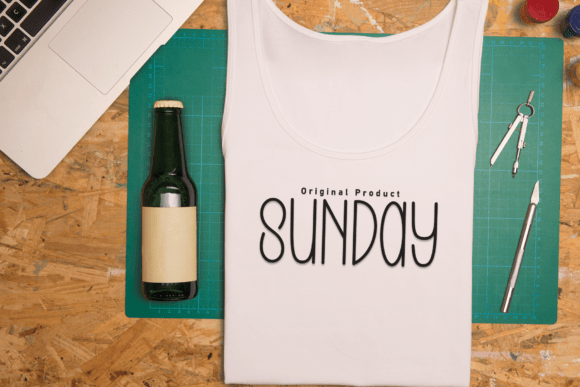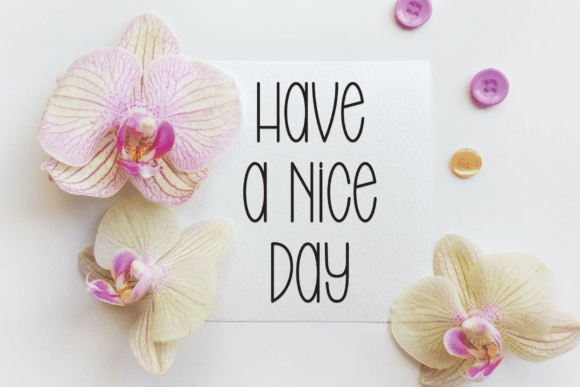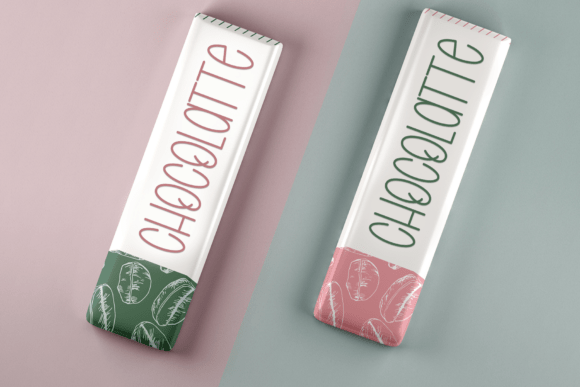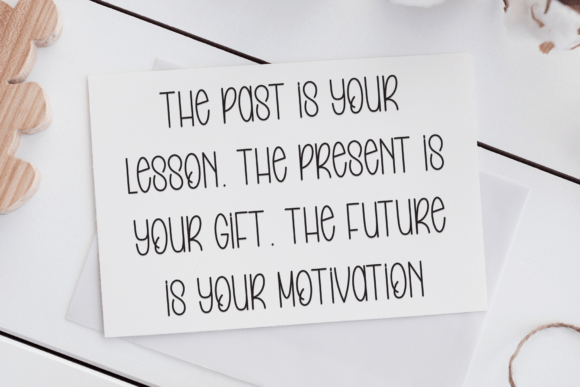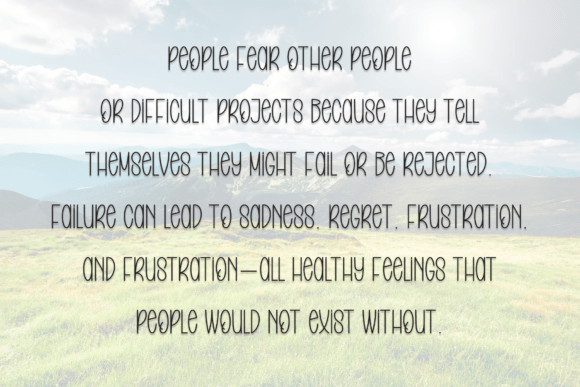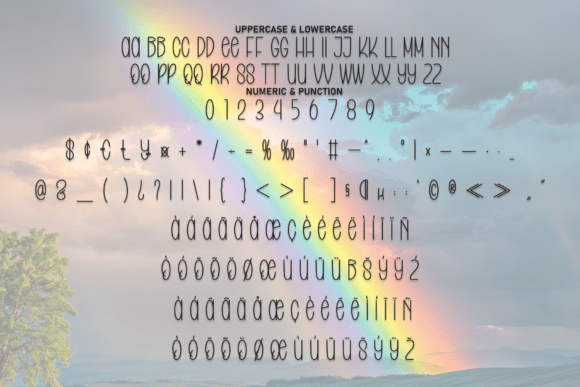
Introduction to Rainbow Remember Font Font
Fonts play a crucial role in design, and the Rainbow Remember Font font is a typeface that brings both character and versatility to any project. Whether you’re working on a branding project, a website, or a print design, the Rainbow Remember Font font offers a unique style that can elevate your work.
Rainbow Remember is a sleek and minimalist display font that emphasizes a clean, contemporary aesthetic.
Labeled as a simple handwritten font , it features exceptionally tall and narrow letterforms rendered with a fine, monolinear stroke weight This font is an ideal resource for minimalist lifestyle branding, boutique editorial layouts, clean digital interface headers, and sophisticated personal blog titles.
Key Features of Rainbow Remember Font Font
Why Choose Rainbow Remember Font Font?
The Rainbow Remember Font font is more than just a typeface – it’s a design tool that helps you communicate your message with style and clarity. Its unique character set and versatile design make it suitable for a wide range of applications, from elegant invitations to bold headlines.
With its carefully crafted letterforms and balanced proportions, the Rainbow Remember Font font ensures readability and visual appeal across all mediums.
What makes Rainbow Remember Font font special?
The Rainbow Remember Font font stands out with its unique design, exceptional readability, and versatility across various design applications.